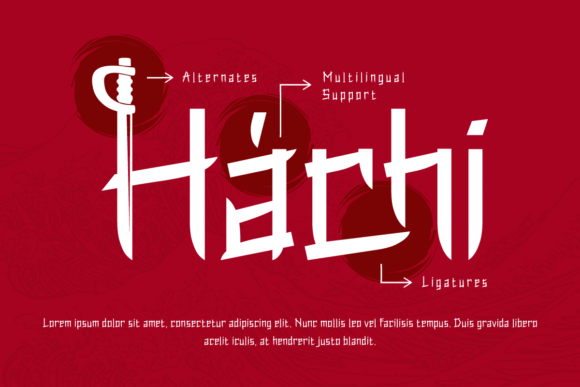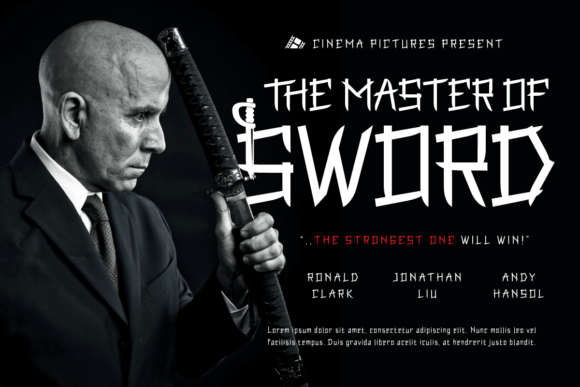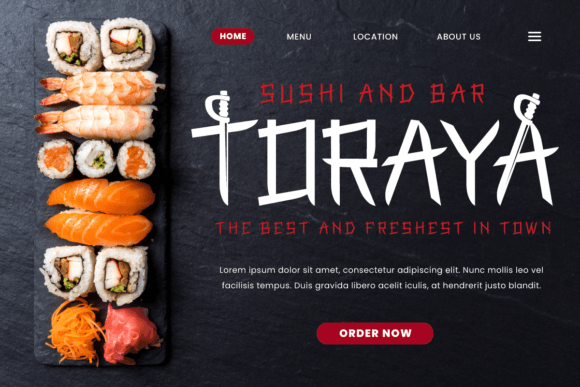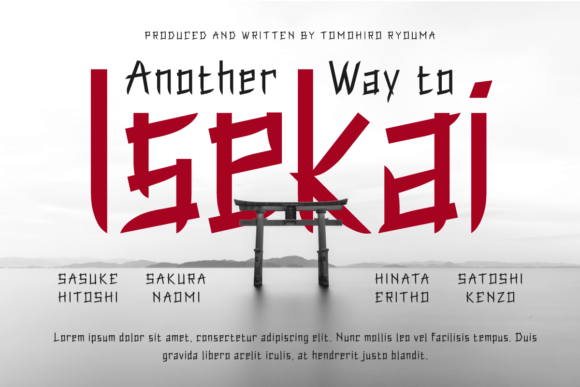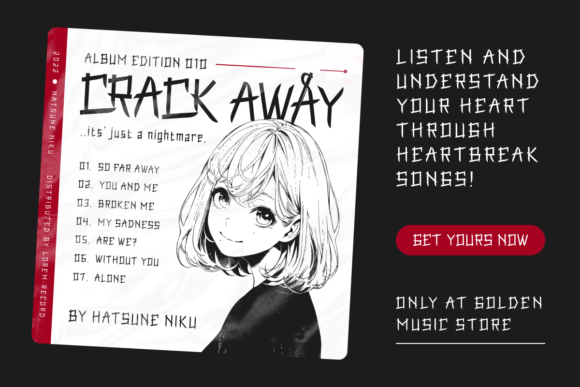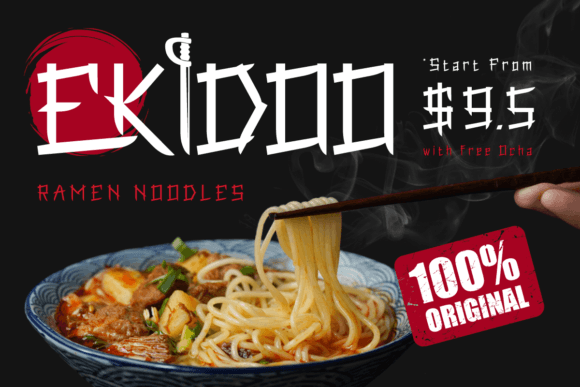
Introduction to Qasengi Font
Qasengi is a bridge to the cultural wonders of Japan and Southeast Asia in a captivating typographic form.
With a strong Japanese theme, this font is the perfect companion for any project that calls for a distinctly Japanese and Southeast Asian touch In your designs, Qasengi will bring a very authentic feel.
Key Features of Qasengi Font